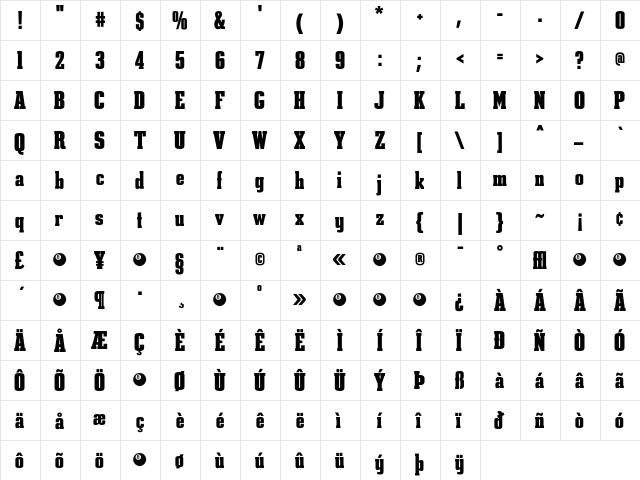
Constructa Black
Design Context for Constructa Typeface
Constructa takes a measured approach to typography — its balanced proportions and neutral character make it a reliable workhorse for both digital and print work.